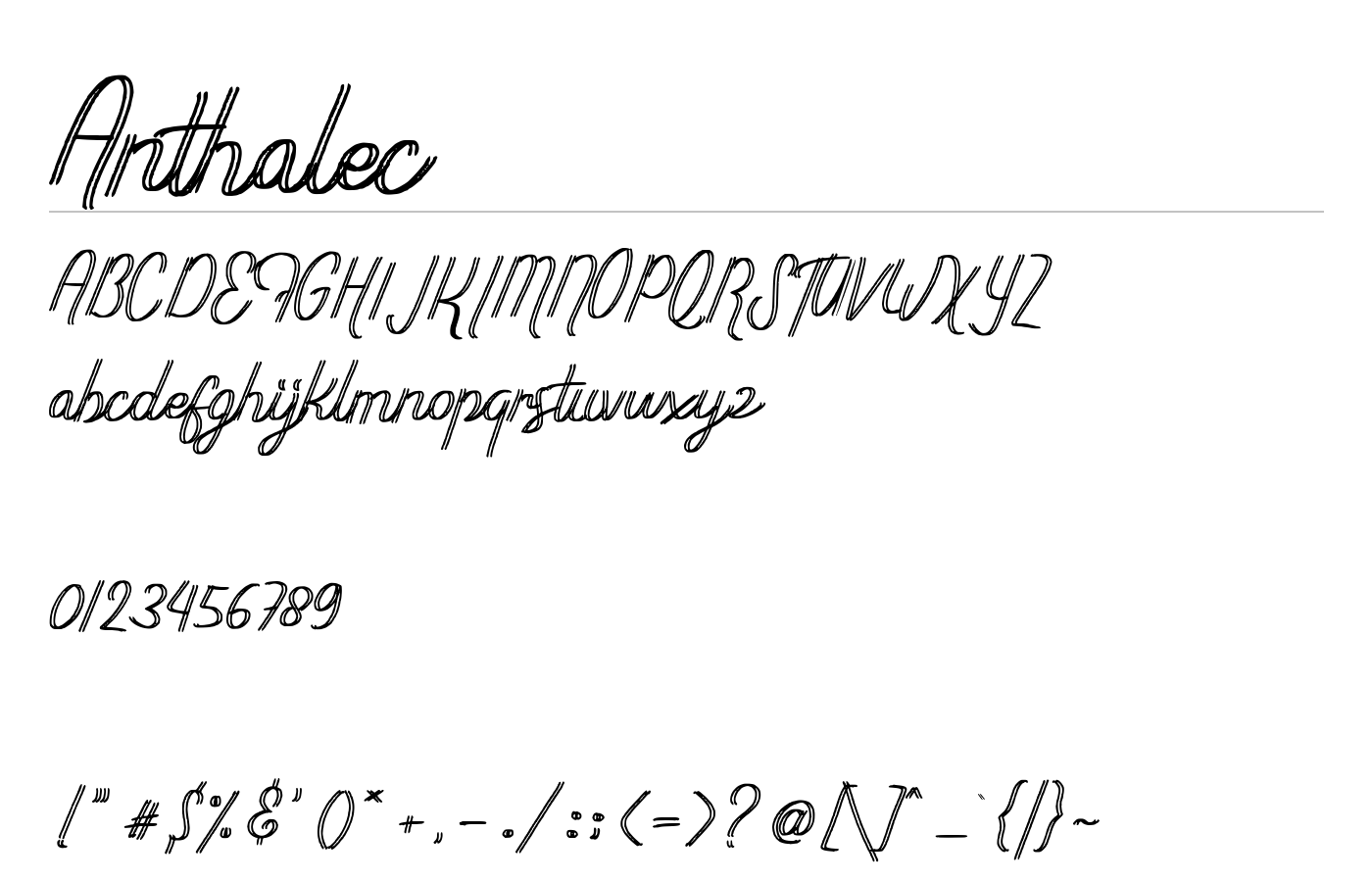
Anthalec is a delicate and elegant script font characterized by its slender, slightly condensed letterforms and a light weight that emphasizes sophistication and finesse. Its narrow, flowing strokes and subtle slant give it a handcrafted feel, making it ideal for stylish branding, invitations, and fashion-forward editorial designs where a graceful and refined appearance is desired. This font works best in display settings, adding a unique, airy charm to headlines and logos that seek a touch of modern elegance.
Anthalec Font
About Anthalec Font
| Designer | Fannan Studio |